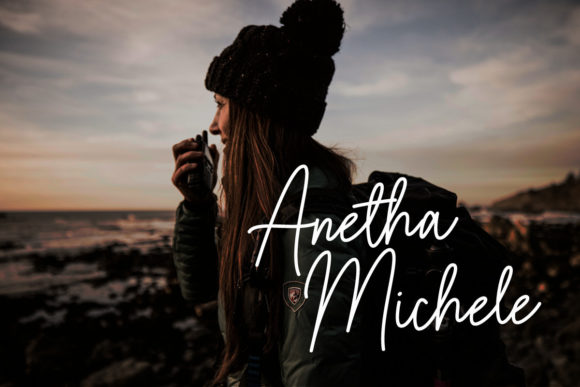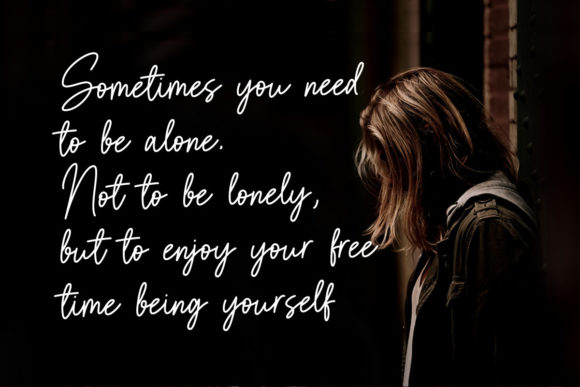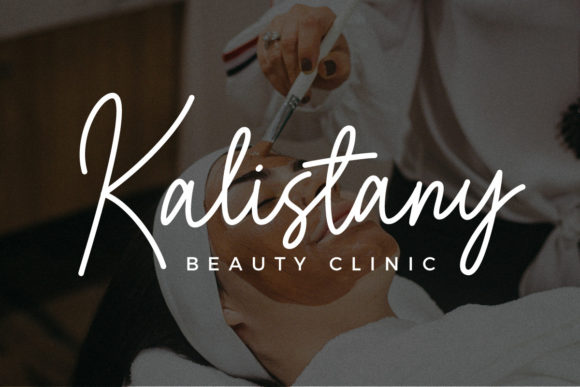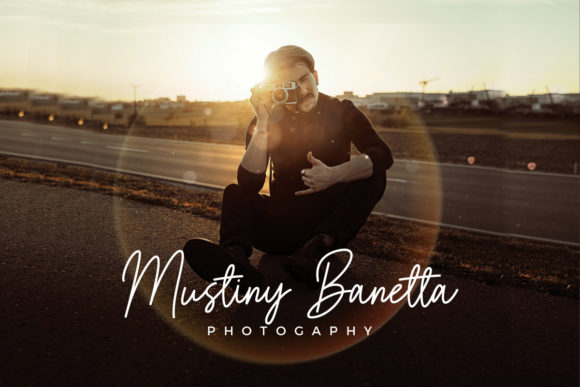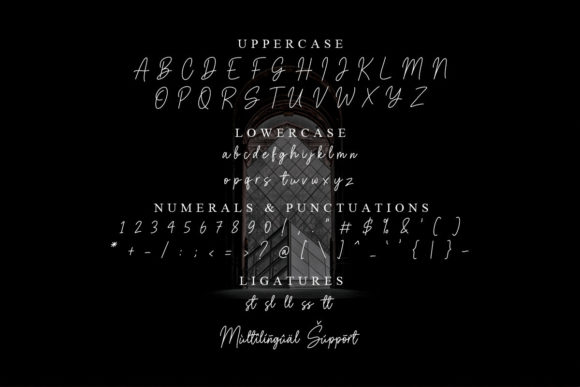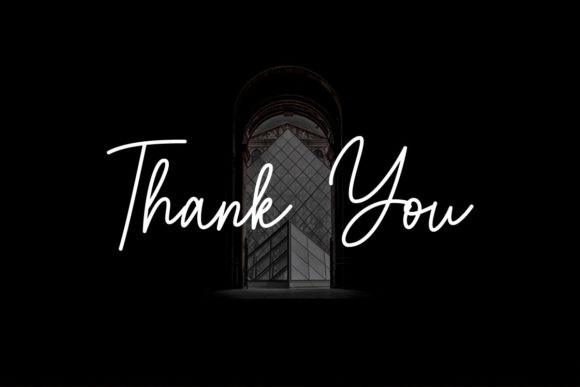
Introduction to Mahgony Font
Have you ever been in the middle of a creative project, desperately searching for the perfect font to give it that extra oomph? You scroll through countless options, but nothing seems to capture the essence of your vision. That’s where Mahgony Font comes in – a stylish, casual, and laid-back script font that’s sure to elevate your design to the next level.
With its unique blend of elegance and playfulness, Mahgony Font is the perfect addition to any design resource collection. Whether you’re working on a free download project or a high-quality commercial design, this font is sure to bring a customized touch that sets your work apart from the rest. And the best part? The possibilities are endless – from social media graphics to wedding invitations, the only limit is your imagination.
Key Features of Mahgony Font
- High-quality, unique font design ideal for creative projects and design resources.
- Features a transparent background, allowing for seamless integration into different design elements.
- Designed with a high resolution, ensuring crisp and clear text display in various sizes and applications.
- Comes in multiple font styles, including bold and regular, providing users with flexibility in their creative projects.
Honest Review: Mahgony Font
As a designer, I’m always on the lookout for unique and high-quality fonts to enhance my creative projects. The Mahgony Font caught my attention, and I decided to give it a try.
- ✨ The font has a beautiful, elegant design that adds a touch of sophistication to any project.
- ✨ It’s a high-quality font that looks great in both print and digital formats.
- ⚠️ The font is not as versatile as I’d like, with limited font sizes and styles available.
- ⚠️ The font family is not as extensive as some other high-quality fonts on the market.
Overall, I’d say that the Mahgony Font is a solid addition to any designer’s toolkit. While it may not be the most versatile font out there, it’s a beautiful and elegant choice for any creative project. With a little creativity, you can make the most of this design resource, even with its limitations.
Getting the Most Out of Mahgony Font
For optimal results, use Mahgony Font in conjunction with a high-quality image or background. Experiment with different font sizes, colors, and styles to create a unique and visually appealing design.
Mahgony Font is ideal for creative projects, such as logos, brochures, business cards, and presentations. Its high-quality design and transparent background make it a versatile design resource for various applications.
Alternatives to Mahgony Font
The Great Vibes Font is a high-quality, elegant script font perfect for creative projects that require a touch of sophistication. It’s ideal for designing wedding invitations, greeting cards, or any project where a beautiful, handwritten feel is desired.
Compared to Mahgony Font, Great Vibes Font offers a more refined and sophisticated look, making it suitable for high-end designs. It’s also available for free download, making it a great alternative for designers on a budget.
The Carolyna Pro Font is a modern, elegant serif font designed for use in various creative projects, including logos, branding materials, and print designs. Its high-quality design and transparent background make it a popular choice among designers.
Compared to Mahgony Font, Carolyna Pro Font offers a more modern and sleek look, making it suitable for contemporary designs. It’s also a great option for designers who need a font with a transparent background for seamless integration with images.